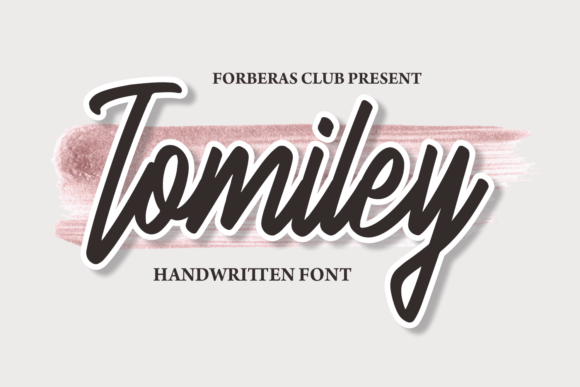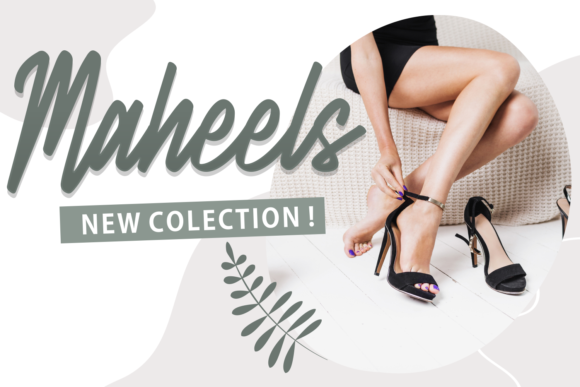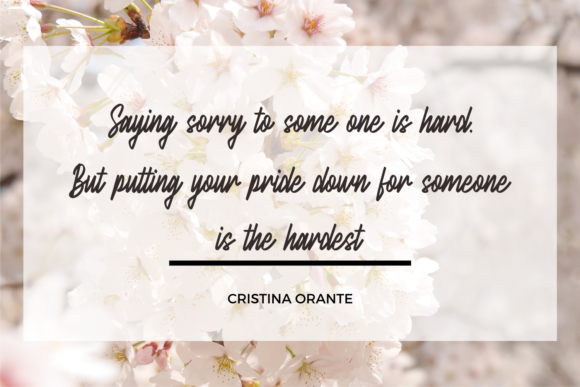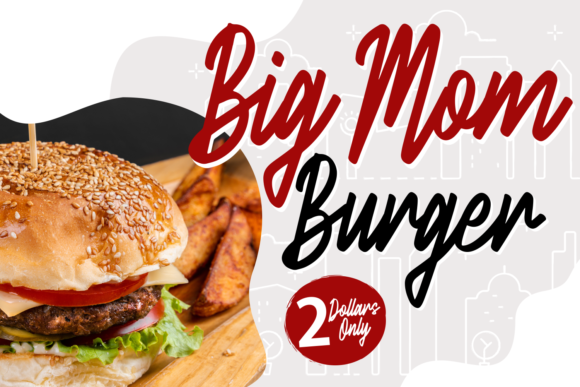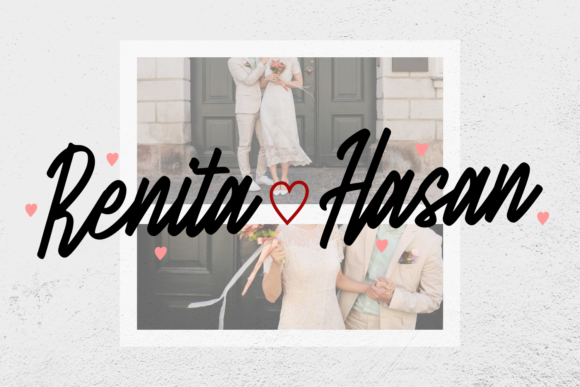
About Tomiley Font
Tomiley is a meticulously crafted handwritten font that emanates a sense of sweetness and subtlety. Designed with meticulous care and attention to detail, Tomiley is dedicated to delivering maximum impact to your creative endeavors. With its innate ability to infuse elegance and class, this font becomes an invaluable asset for enhancing the visual appeal of your design projects.
Tomiley’s graceful strokes and refined curves exude a unique blend of delicacy and finesse, instantly elevating the aesthetics of your creations. Whether you’re working on branding, invitations, logos, or any other design venture, Tomiley’s understated yet impactful appearance has the power to elevate your work to a new echelon of sophistication.
One of Tomiley’s notable features is its remarkable versatility, seamlessly complementing a diverse range of design themes and styles. Its timeless allure ensures that it remains relevant and captivating, making it a versatile choice for designers seeking to create visuals that radiate both refinement and approachability.
Enhancing its user-friendliness, Tomiley boasts PUA encoding, granting effortless access to an array of glyphs and swashes. This feature empowers you to infuse your designs with personalized touches, from exquisite ligatures to intricate embellishments. With Tomiley, you wield the creative liberty to customize and elevate every facet of your work.
By incorporating Tomiley into your projects, you seize the opportunity to infuse your work with a touch of handwritten elegance. Its innate capacity to seamlessly blend charm and refinement positions it as an excellent choice for those desiring to add a subtle yet impactful element to their designs.
Beyond its role as a font, Tomiley serves as a versatile tool that empowers you to channel your creativity and establish a deeper connection with your audience. Its delicate and subtle handwritten style, coupled with the convenience of PUA-encoded glyphs and swashes, positions it as an exceptional asset for enhancing various design projects and infusing a sense of elegance and sophistication into your work. With Tomiley, you can confidently create designs that resonate with a refined and discerning audience, leaving a lasting impression of grace and class.